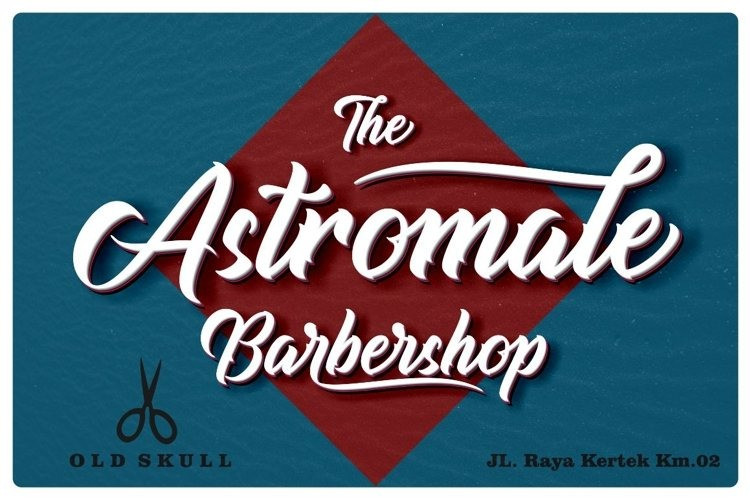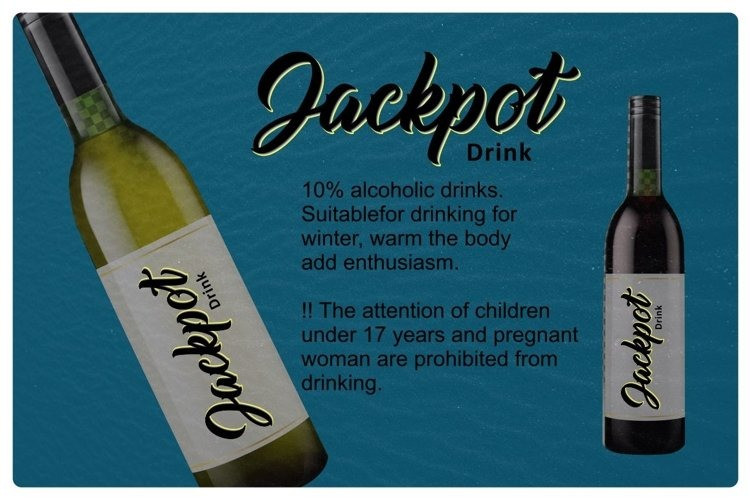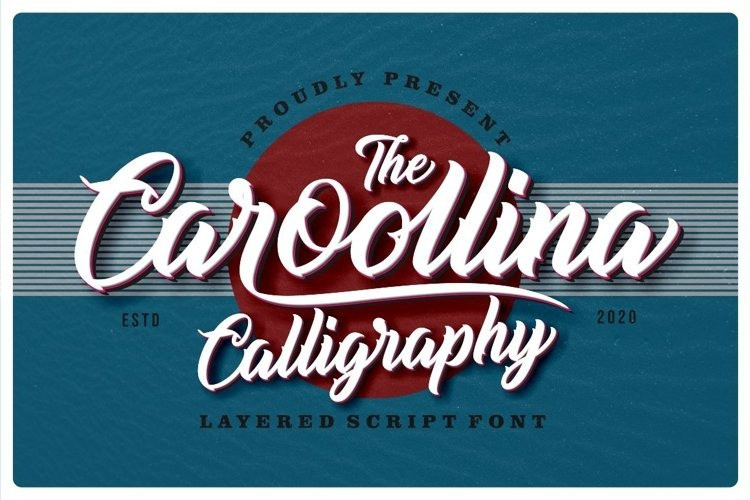
Caroollina Script Font
Caroollina is a calligraphy script font. It was carefully crafted from a sketch.
It has a young and energetic feel which can be used to create an unique logotype, name tag, quote, business cards, Apparel, Packaging and much more!
elegant font with a lot of stylistic alternates for your great project.
We made this font carefully so that each letter could be connected well and elegantly either using alternate or not. this is very easy to use, just rely on your creativity!